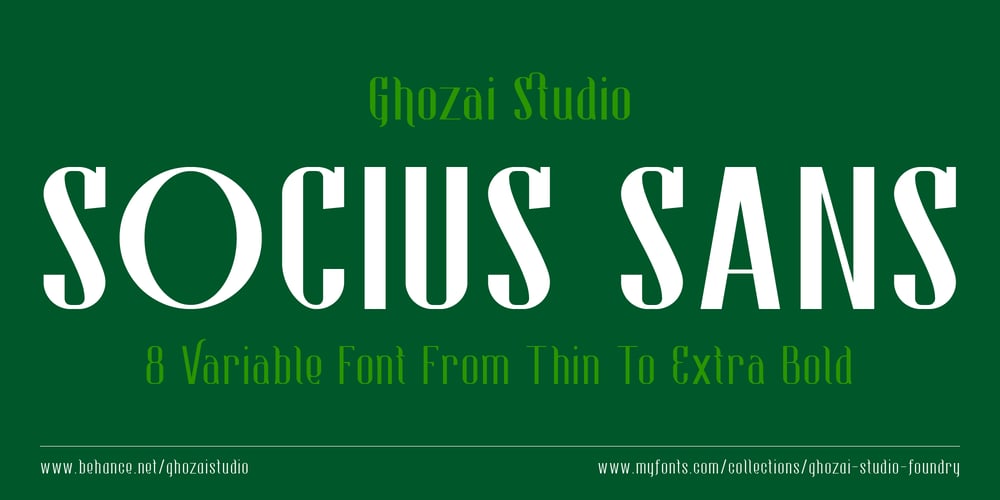
Socius Sans Font Family was designed by Manzur Ghozaali and published by Ghozai Studio. Socius Sans contains 8 styles and family package options. Socius Sans is a tall and elegant sans serif font available in eight weight styles, ranging from thin to extra bold, and is inspired by the classic era. Its design features a combination of thin curves and straight stems, creating high contrast and adding personality to the font. Socius Sans also includes a wide range of ligatures and alternate styles, providing more options for your design needs. With its diverse range of styles, Socius Sans is suitable for various design projects, including luxury applications such as hotel logos, restaurant menus, posters, web applications, and wedding invitations, as well as for fashion-related designs, band posters, headlines, and more.